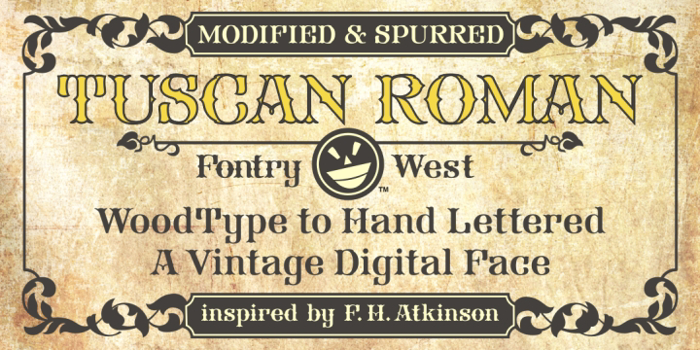
FHA Mod Tuscan Roman NCV Font
FHA Modified Tuscan Roman NCV Style
FHA Spur Tuscan Roman NCV Style
FHA Spur Tuscan Roman Open NCV Style
FHA Tuscan Roman - Modified, Spurred and Open Faced
The first Tuscan lettering was penned in the mid-fourth century by the calligrapher Furius Dionysius Filocalus. The style was still in common usage as calligraphy when Vincent Figgins designed the first Antique Tuscan for print in 1817. Antique and Gothic Tuscan woodtype fonts appeared in the 1830’s. By the 1850’s, Tuscan fonts had become popular in America. These styles continued in print use into the twentieth century.
Tuscan Antique and Gothic styles, borrowed from print and calligraphy, were perfect for signs, posters, handbills and other large format advertising. Sign painter, Frank Atkinson demonstrated several Tuscan forms in his book Sign Painting, A Complete Manual. Modified & Spurred Tuscan Romans were inspired by this and other works of the same period.